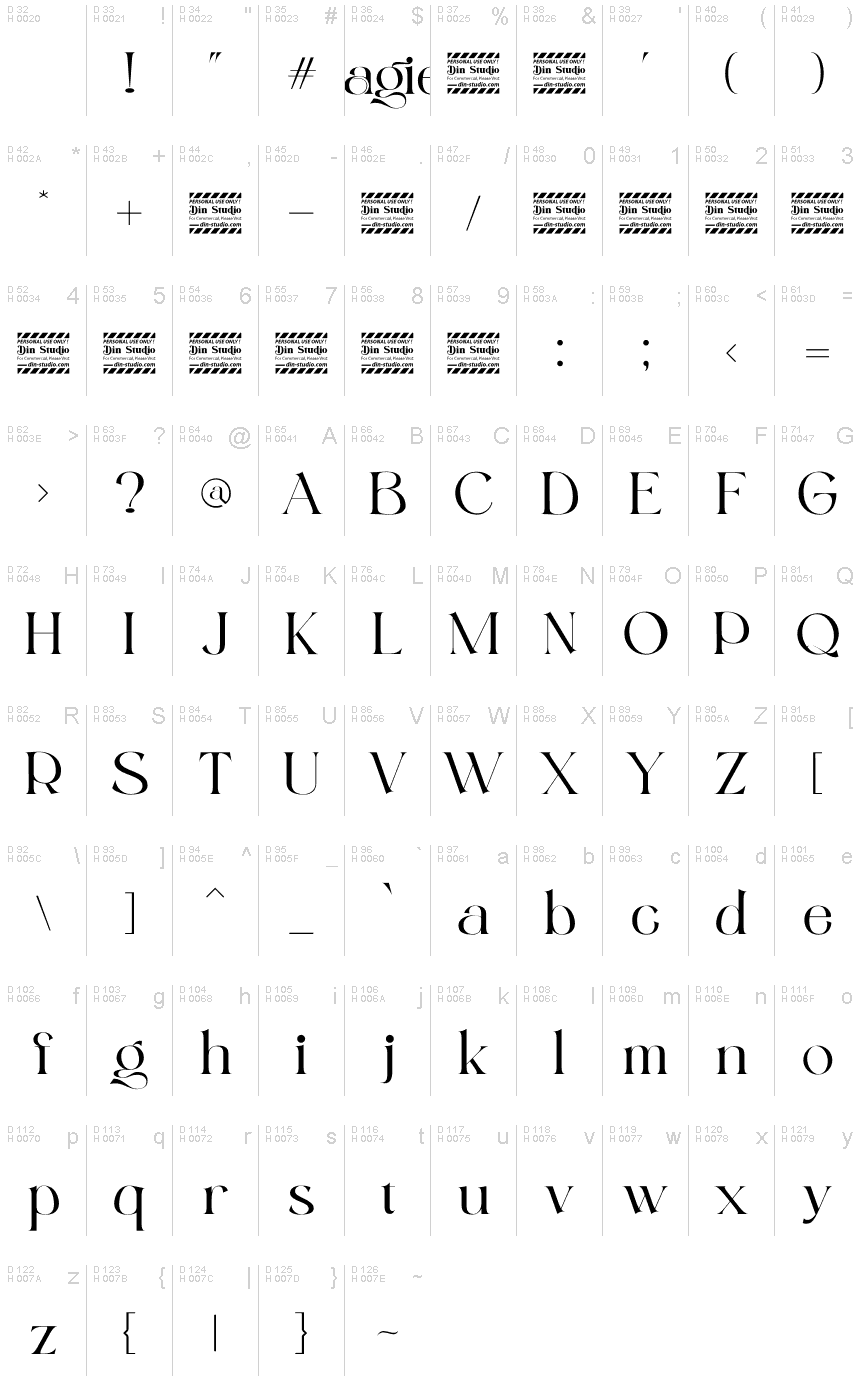
Cagier, crafted by Din Studio, is an exquisite serif font that exudes luxury and timelessness. It effortlessly blends classic and vintage elements with a touch of modern trendiness, making it the ultimate choice for any design project. Whether you're creating a captivating logo, impactful headings, or a stylish branding identity, Cagier will elevate your work to new heights.
This versatile font is equally adept at enhancing magazine layouts, album covers, book jackets, movie titles, apparel designs, inspirational quotes, invitations, flyers, posters, greeting cards, product packaging - the possibilities are endless!
Unleash your creativity and let Cagier bring sophistication and elegance to all your printed materials.